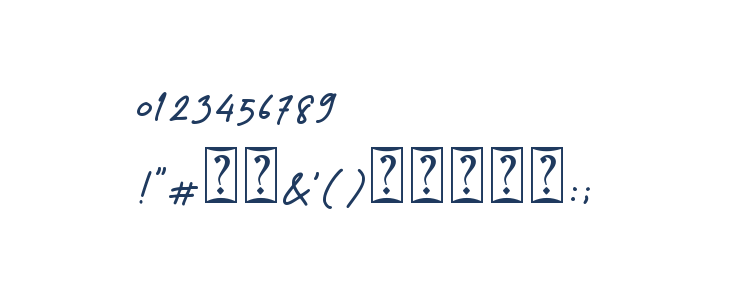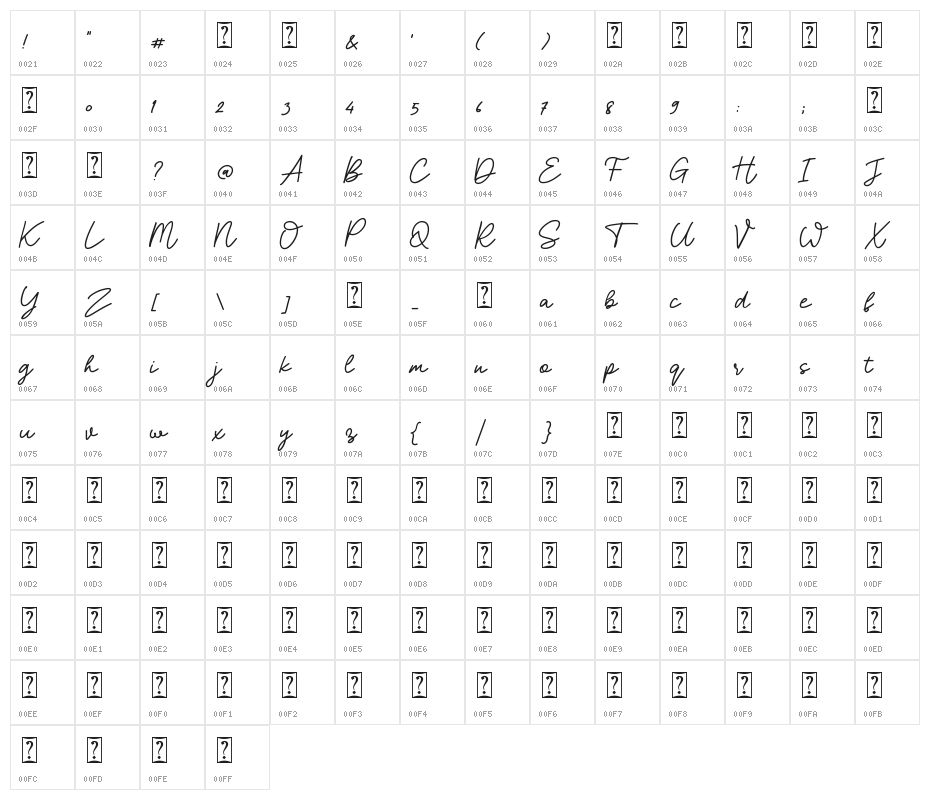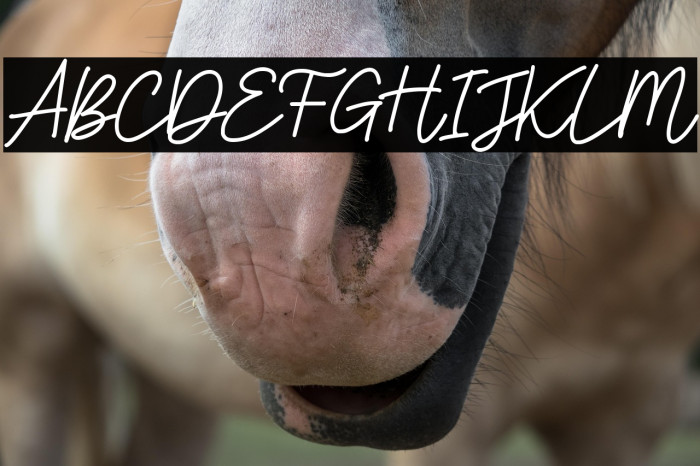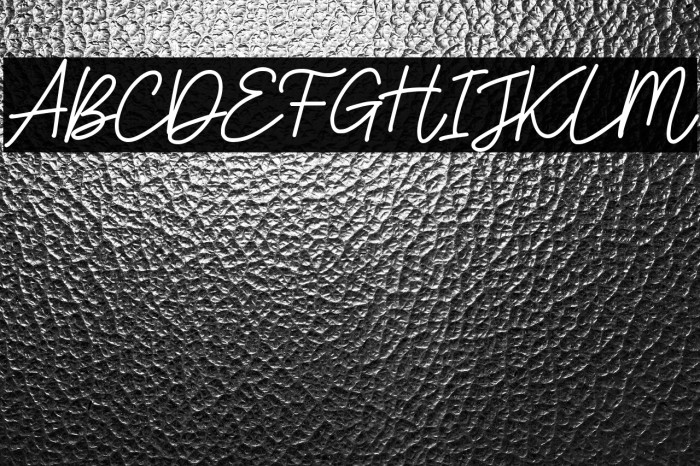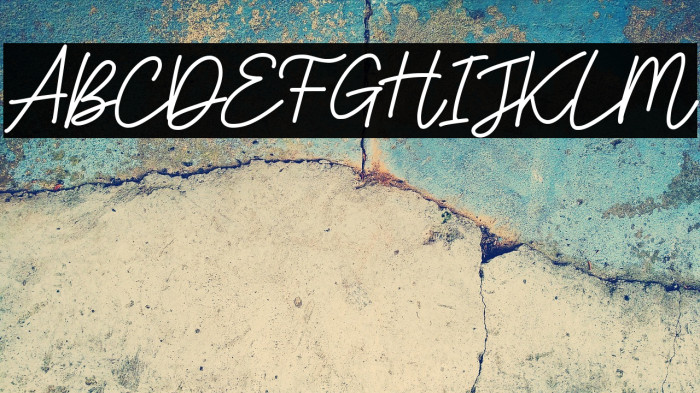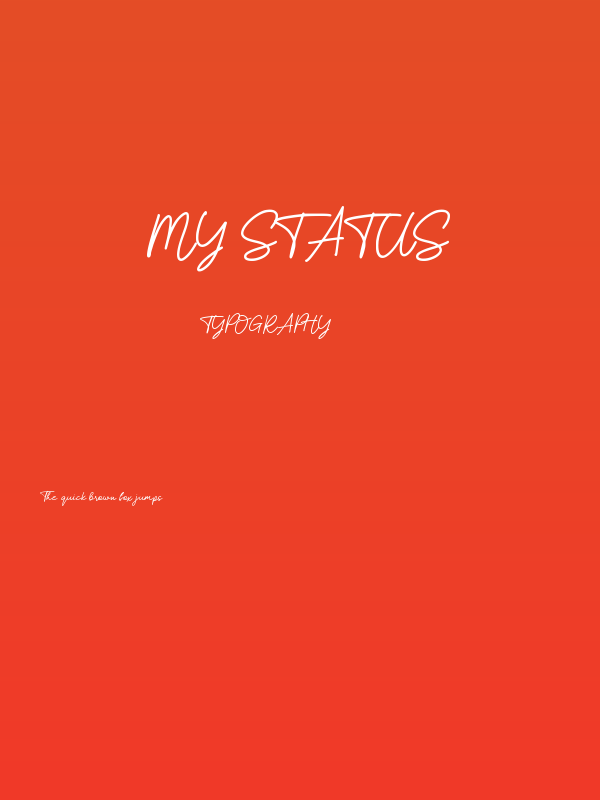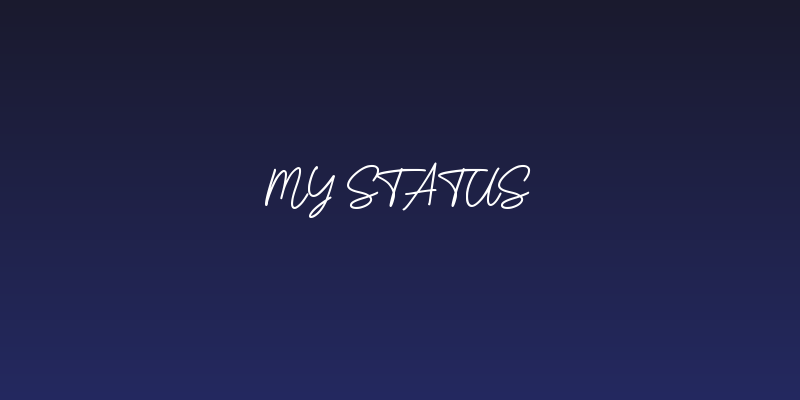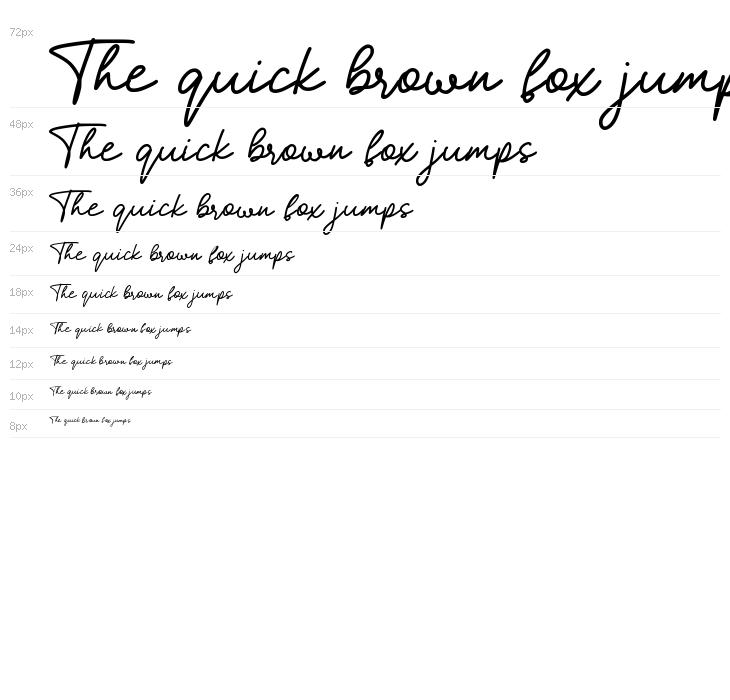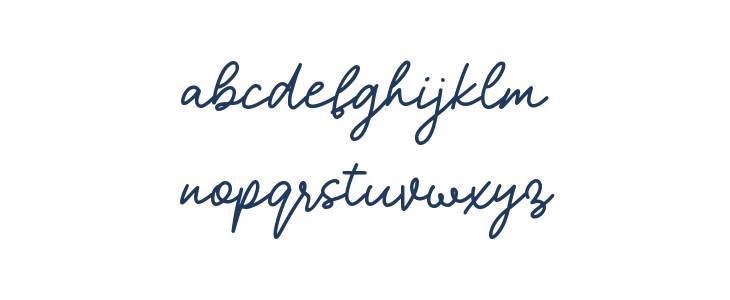
my status Font
my status Description
This font features a fluid, cursive style that mimics natural handwriting. The uppercase letters are elegantly elongated, with smooth curves and a consistent slant that adds a sense of motion and grace. The lowercase characters maintain a cohesive flow, with rounded forms and delicate loops that enhance readability while preserving the handwritten aesthetic. The numerals are crafted with the same attention to detail, offering a harmonious blend with the alphabet. Special characters are thoughtfully designed to match the overall style, ensuring versatility in various applications.
| Overall Style | Elegant, Handwritten |
| Proposed Projects | Ideal for wedding invitations, greeting cards, personal branding, and any project requiring a personal, elegant touch. |